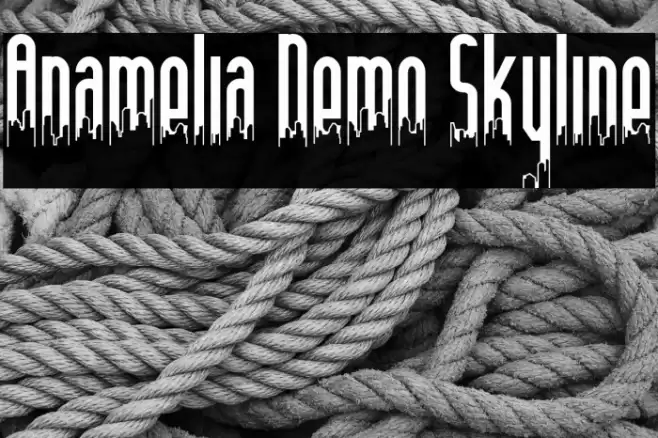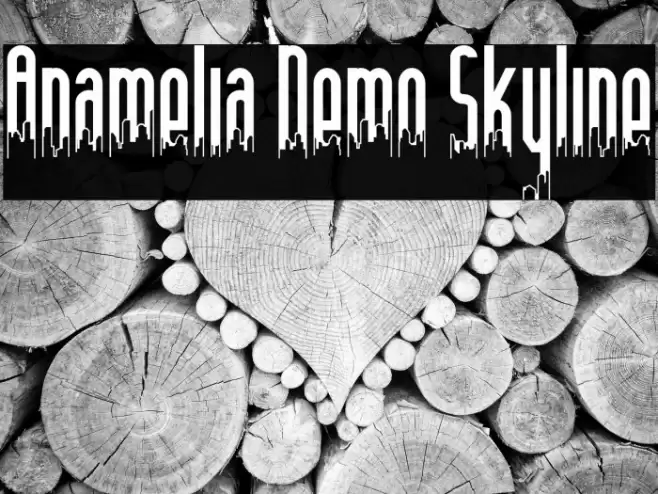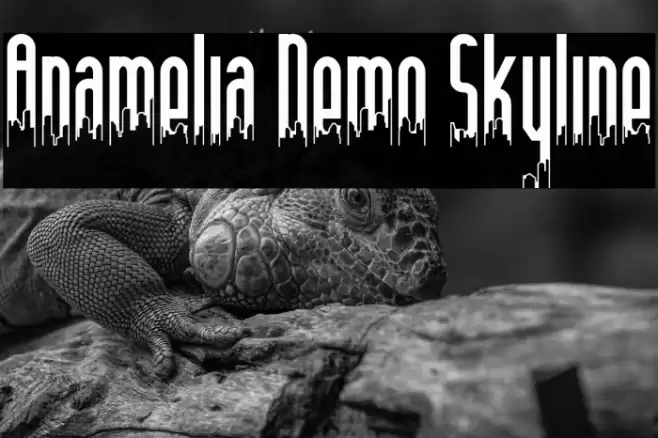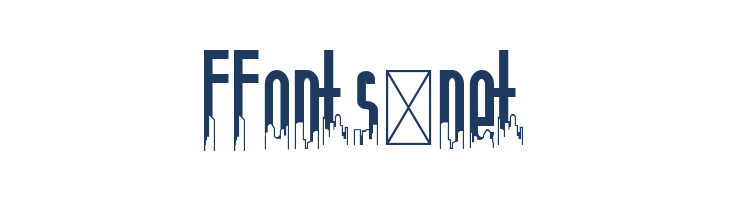
Anamelia Demo Skyline Font
Anamelia Demo Skyline Description
This font features a unique and striking design that incorporates elements of a city skyline into the letterforms. The characters are tall and narrow, with vertical lines that mimic skyscrapers, creating a dynamic and urban feel. The uppercase and lowercase letters maintain a consistent height, enhancing the architectural theme. The font's design is both modern and decorative, making it suitable for projects that require a bold and eye-catching typeface. The integration of the skyline motif adds a layer of complexity and creativity, making it ideal for branding, posters, and other visual media that aim to convey a sense of city life or modernity.
A modern, decorative font with a city skyline motif integrated into tall, narrow letterforms from Regular fonts.
- Proposed Projects: Ideal for urban-themed branding, posters, event promotions, and any design needing a modern, city-inspired aesthetic.
- Overall Style: Modern, Decorative